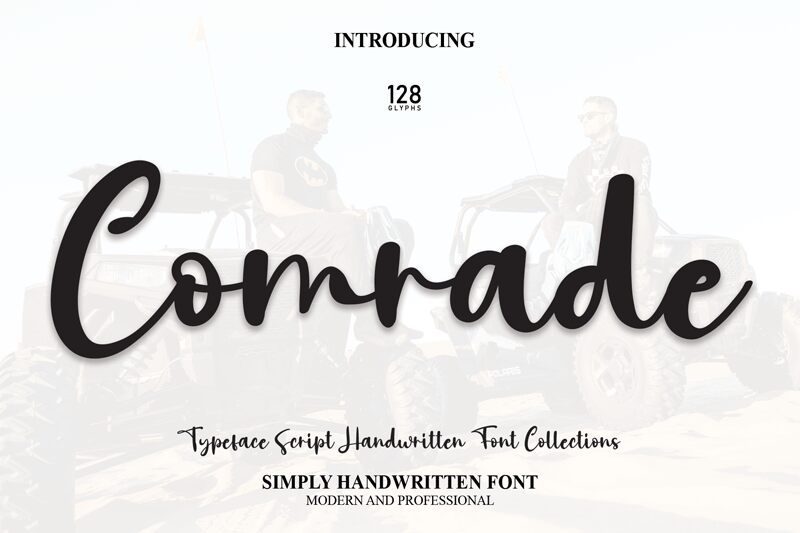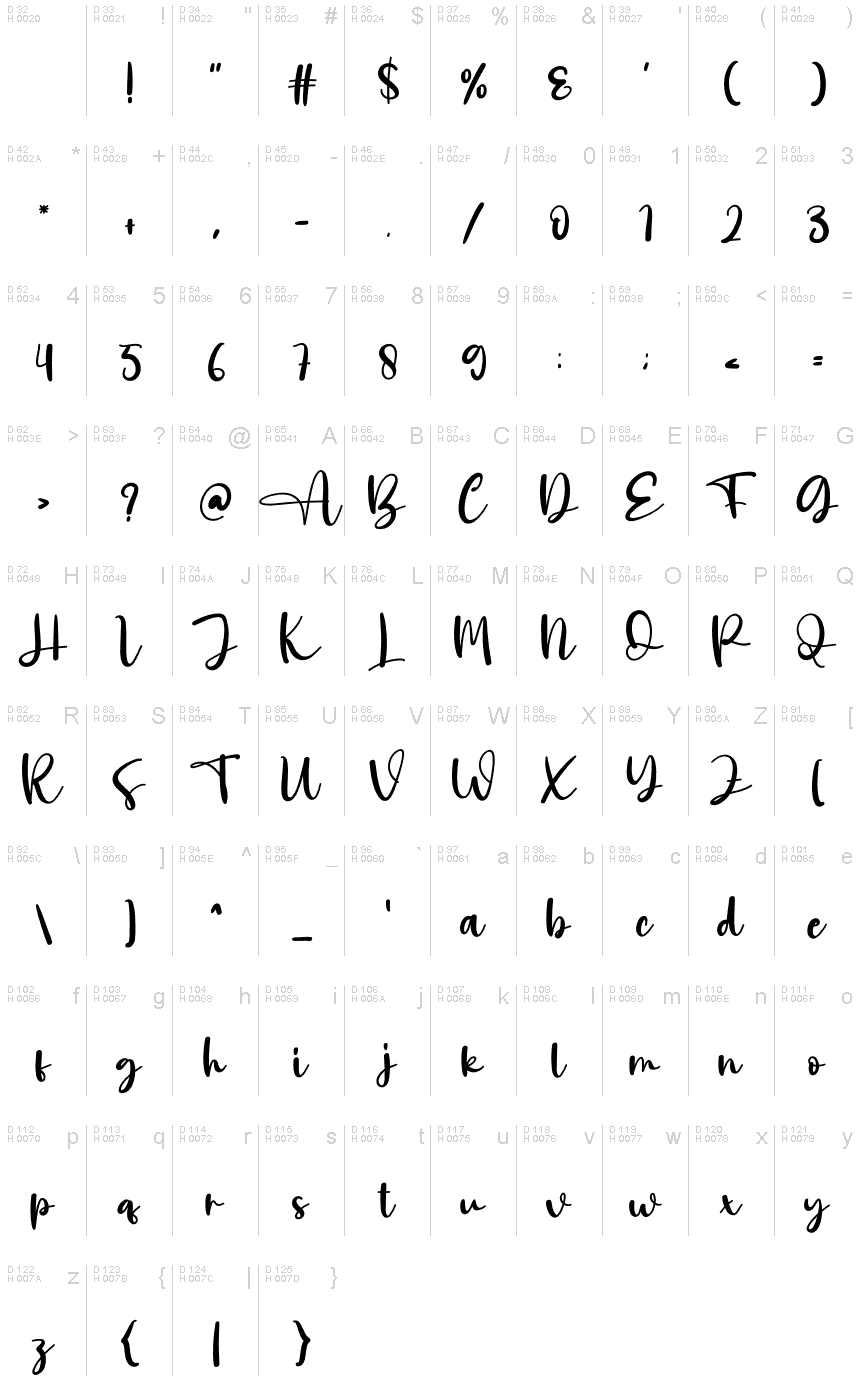
Comrade
Comrade, designed by Scratchones, is a captivating handwritten font with a semi-light weight. Its charming and distinctive style adds a touch of warmth and personality to any project.
With its fluid strokes and organic feel, Comrade is perfect for greeting cards, wedding invitations, and personalized stationery. Its versatility also makes it suitable for branding projects that aim to create a friendly and approachable image. Whether you're designing logos or crafting social media posts, Comrade will infuse your work with an authentic handcrafted aesthetic that captures attention.